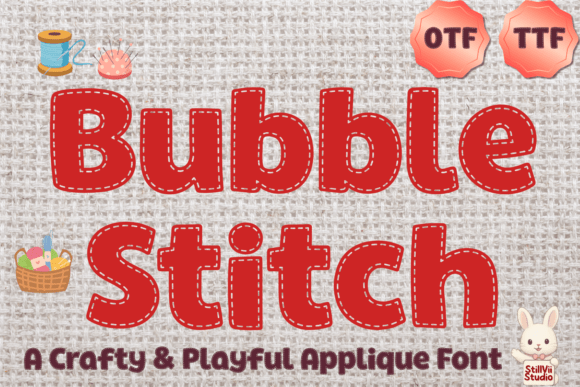
Bubble Stitch Font: Add a Touch of Handmade Charm to Your Designs
Are you looking for a font that can add a sense of cozy, handmade wonder to your creative projects? Look no further than Bubble Stitch, a crafty and playful appliqué font that’s perfect for designers and crafters alike. This unique display typeface features ultra-bold, softly rounded bubble letterforms that mimic custom embroidered fabric patches, giving your designs a rich, tactile texture that’s sure to stand out.
The Charm of Bubble Stitch
The signature charm of Bubble Stitch lies in its highly detailed, white dashed “running stitch” line accent that runs perfectly along the inner border of each vibrant red character. This distinctive feature evokes the nostalgic warmth of homemade quilting, sewing projects, and felt crafts, adding a touch of handcrafted comfort to your visual identity. Whether you’re creating blog titles, kids’ holiday apparel lines, custom nursery wall graphics, or elementary classroom decorations, Bubble Stitch is the perfect choice for adding a playful, illustrative touch to your designs.
Perfect for Crafty Projects
Bubble Stitch is an extraordinary choice for crafty projects that require a font with a personal, handmade touch. Its bold, rounded letterforms and detailed stitching accents make it perfect for:
- Crafting blog titles that showcase your handmade creations
- Designing kids’ holiday apparel lines that are both fun and festive
- Creating custom nursery wall graphics that add a touch of warmth and personality to a child’s room
- Developing elementary classroom decorations that inspire creativity and learning
- Branding whimsical hobby-related projects that celebrate the joy of crafting
What Sets Bubble Stitch Apart
So, what sets Bubble Stitch apart from other fonts? Here are just a few features that make it a standout:
- Ultra-bold letterforms: Bubble Stitch features bold, softly rounded letterforms that are perfect for creating eye-catching headlines and titles.
- Detailed stitching accents: The white dashed “running stitch” line accent adds a touch of handcrafted charm to each character, giving your designs a rich, tactile texture.
- Vibrant red color: The font’s vibrant red color is perfect for adding a pop of color to your designs, while the detailed stitching accents add a touch of contrast and visual interest.
- Playful, illustrative feel: Bubble Stitch has a playful, illustrative feel that’s perfect for designers and crafters who want to add a personal touch to their projects.
Tips for Using Bubble Stitch
Here are a few tips for using Bubble Stitch in your designs:
- Use it for headlines: Bubble Stitch is perfect for creating eye-catching headlines and titles that add a touch of handmade charm to your designs.
- Experiment with colors: While the font’s vibrant red color is perfect for adding a pop of color to your designs, don’t be afraid to experiment with other colors to find the perfect fit for your project.
- Pair it with complementary fonts: Bubble Stitch pairs perfectly with complementary fonts that have a more traditional or serif feel, adding a touch of contrast and visual interest to your designs.
In conclusion, Bubble Stitch is a unique and playful appliqué font that’s perfect for designers and crafters who want to add a touch of handmade charm to their creative projects. With its ultra-bold letterforms, detailed stitching accents, and vibrant red color, Bubble Stitch is sure to stand out in any design. Whether you’re creating blog titles, kids’ holiday apparel lines, custom nursery wall graphics, or elementary classroom decorations, Bubble Stitch is the perfect choice for adding a playful, illustrative touch to your designs.